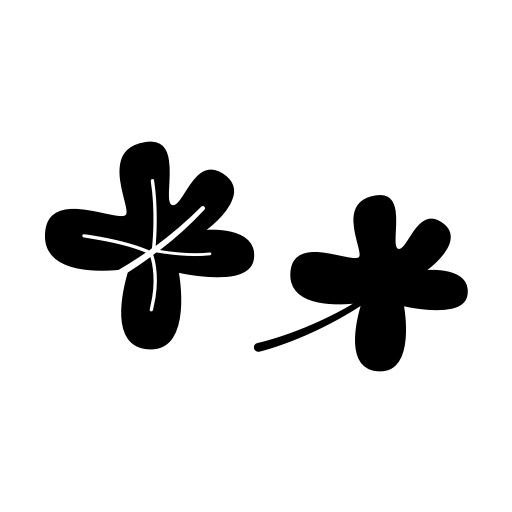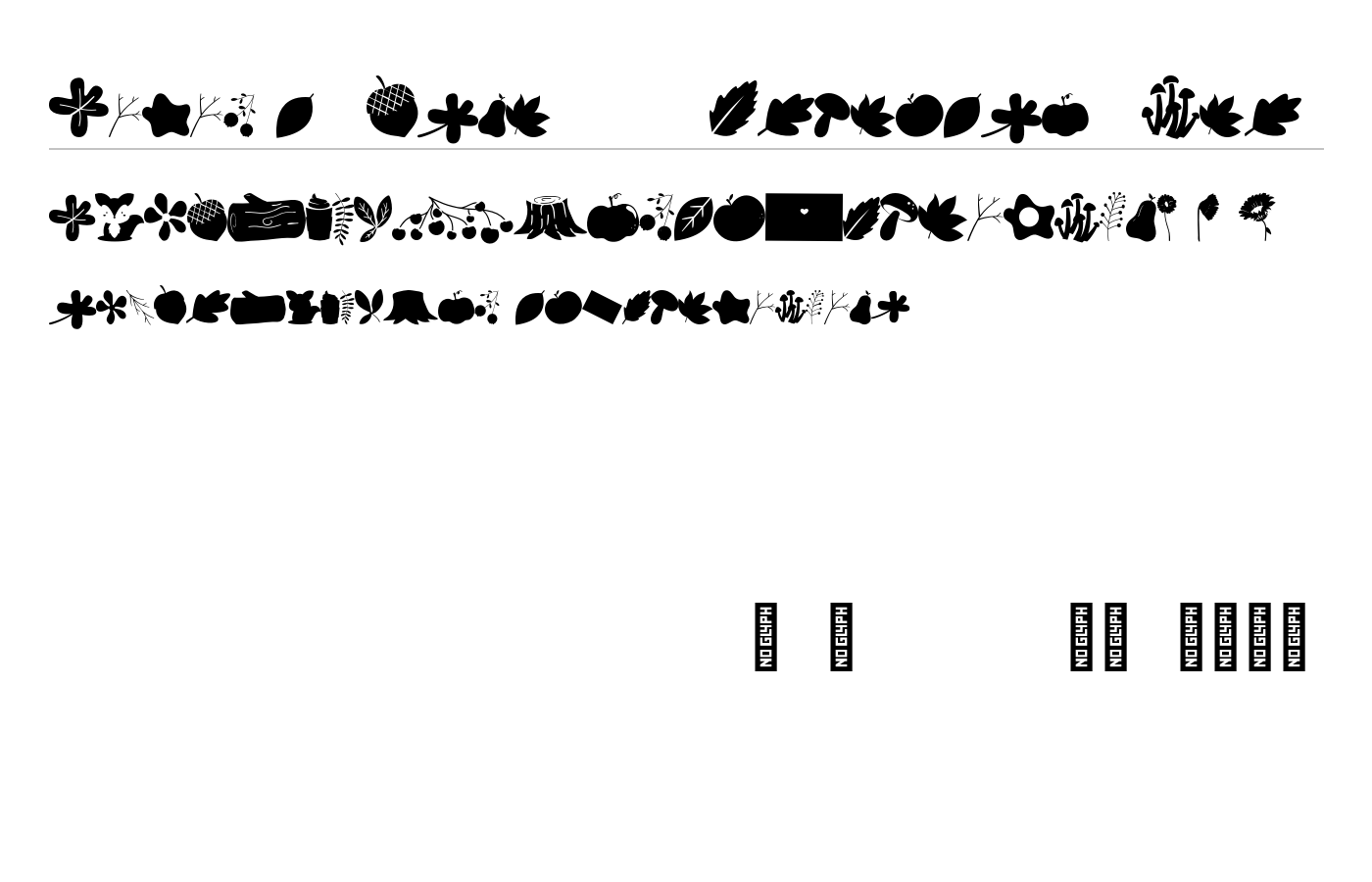
Autumn Days is a decorative dingbat font filled with charming autumn-themed icons like leaves, acorns, pumpkins, and mushrooms. Its playful and cozy style makes it perfect for seasonal designs, invitations, and packaging that aim to evoke the warm, nostalgic feeling of fall. This font works well in creative projects where a festive and nature-inspired touch is desired.